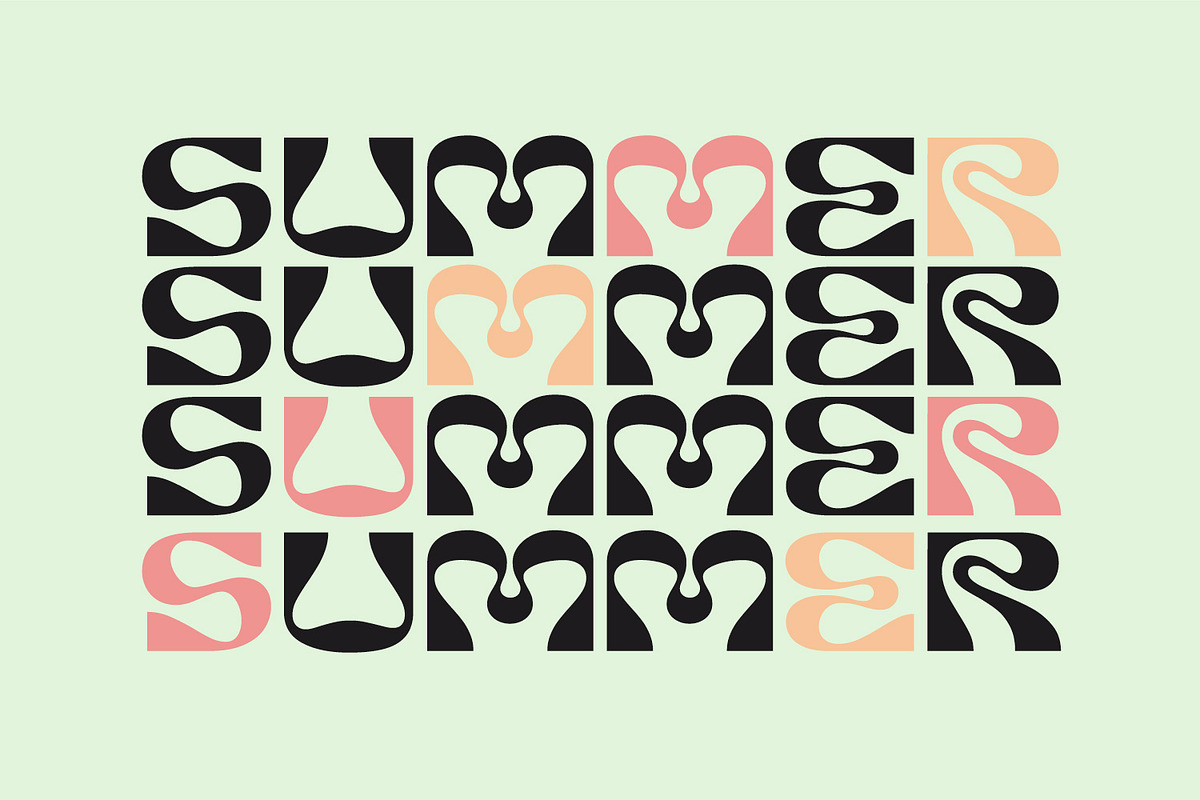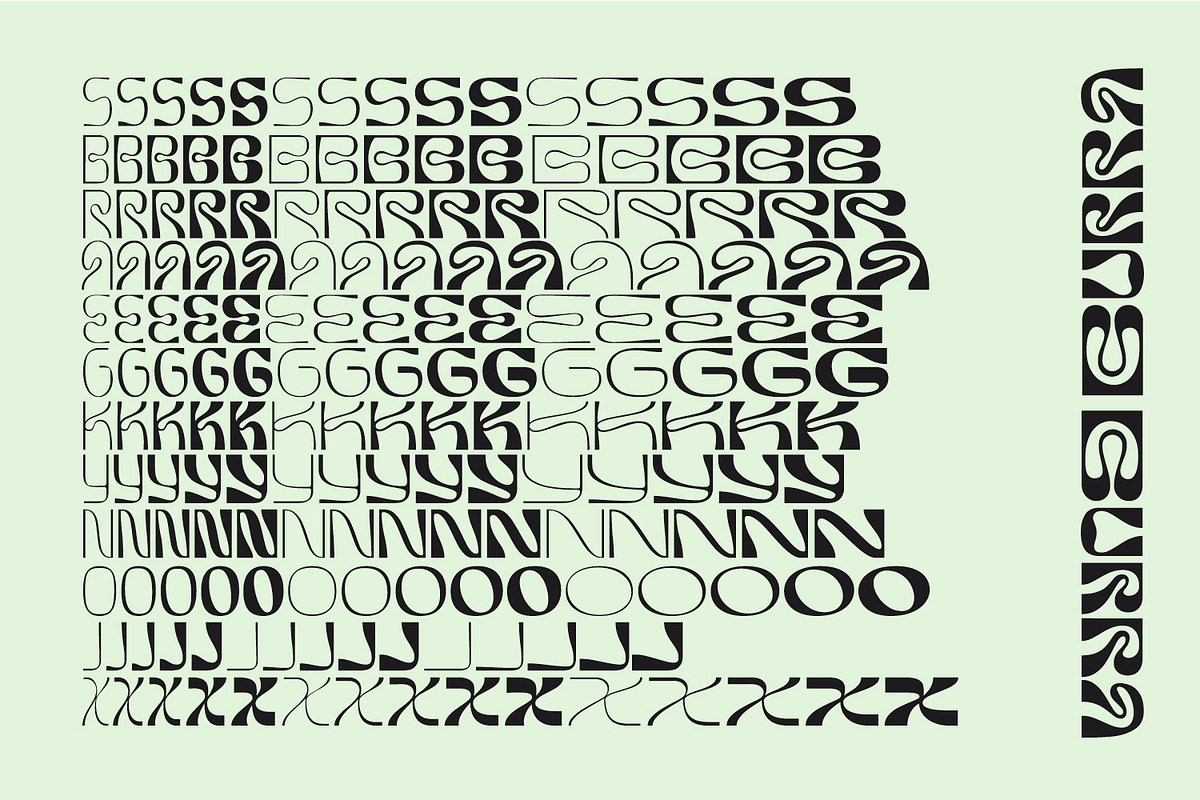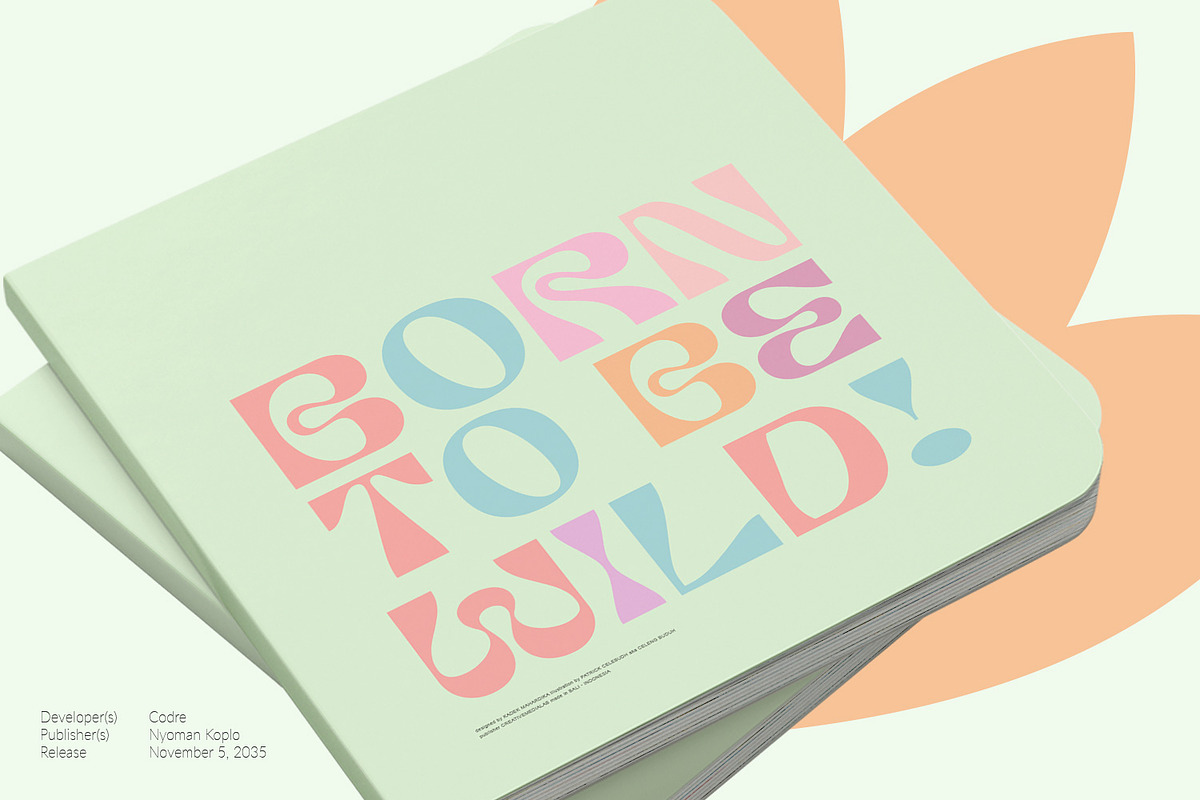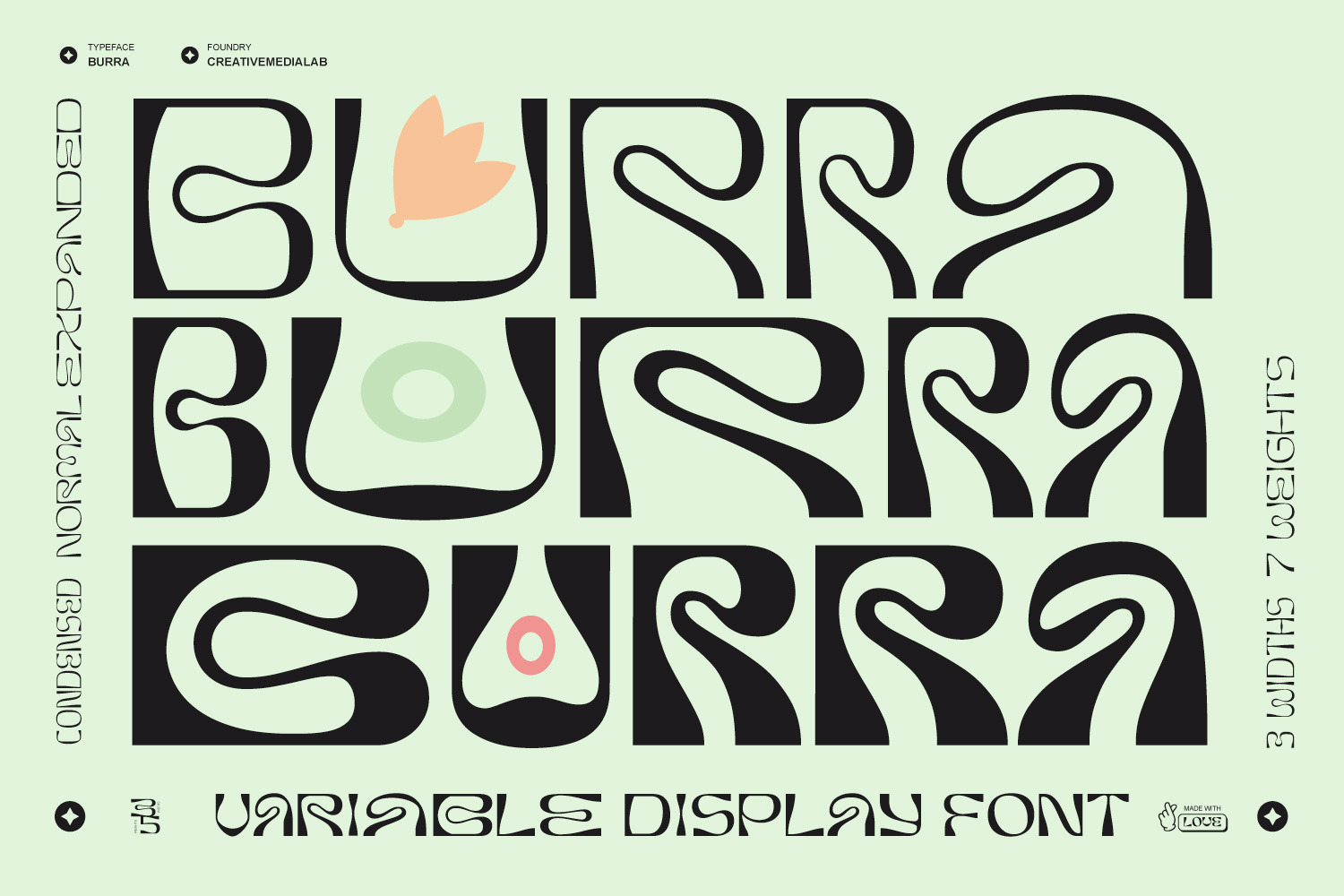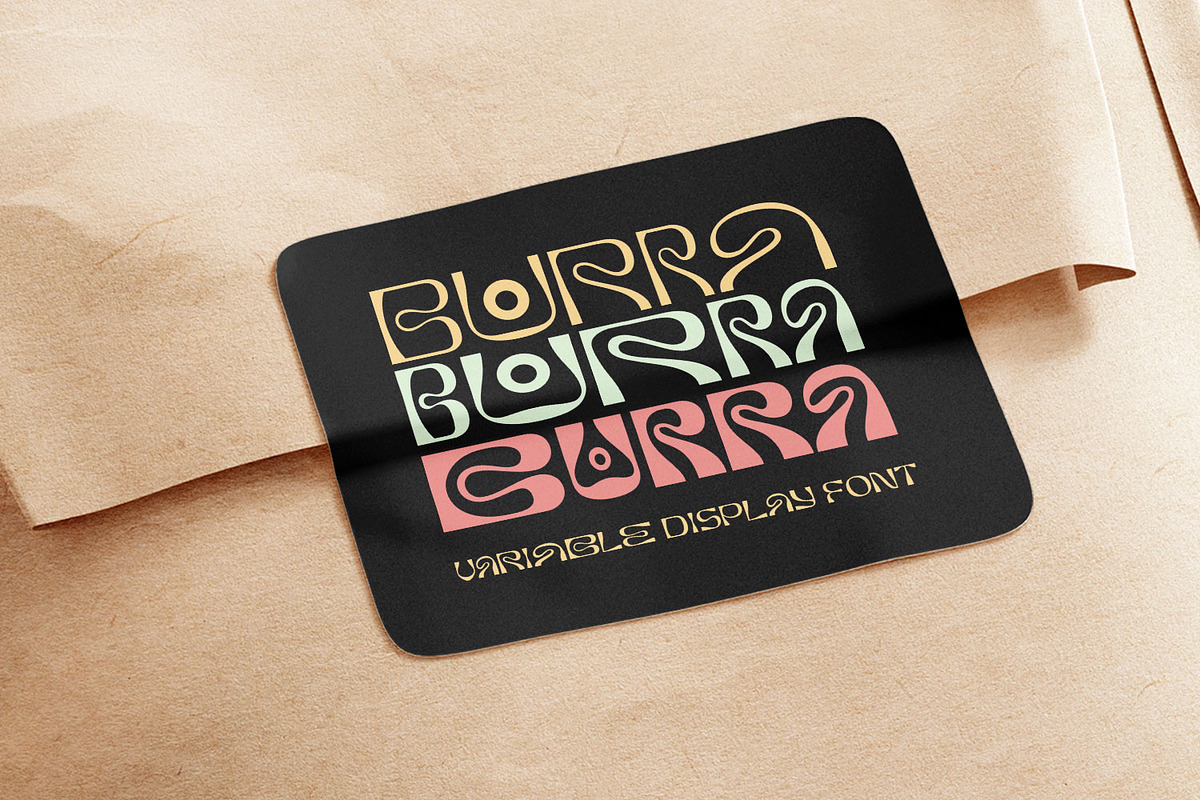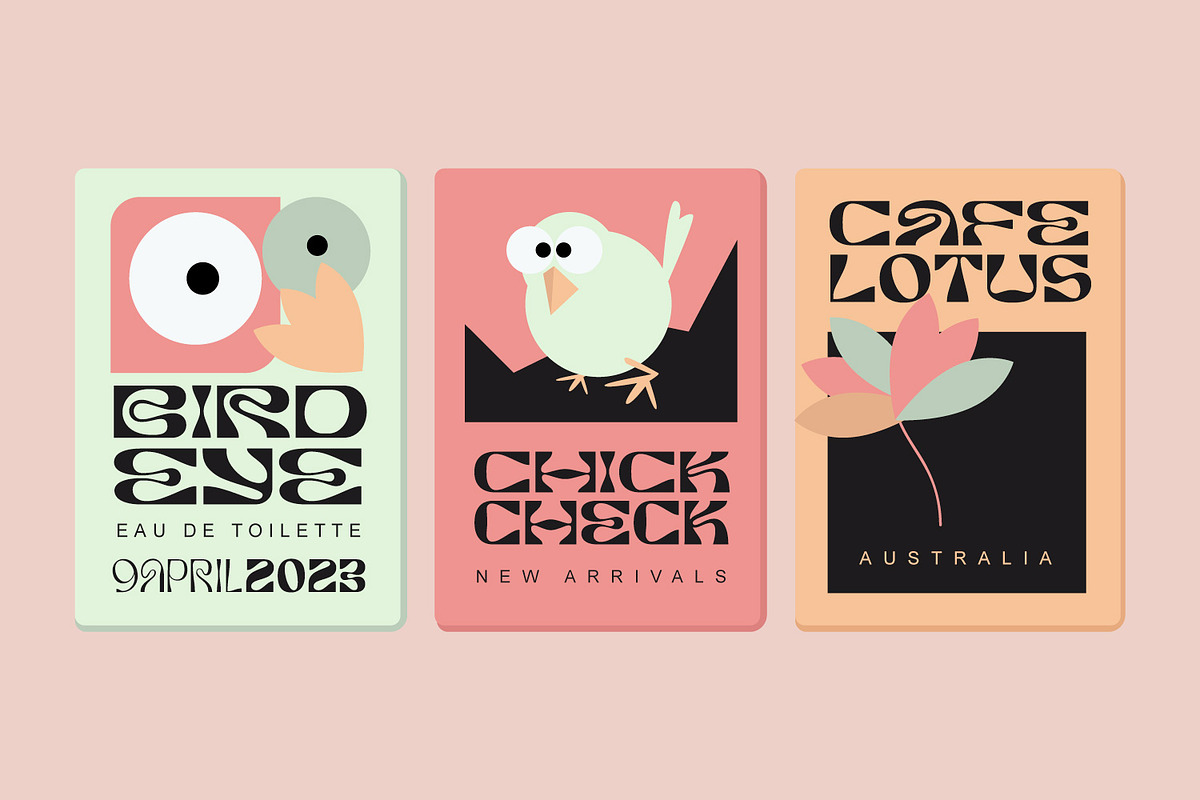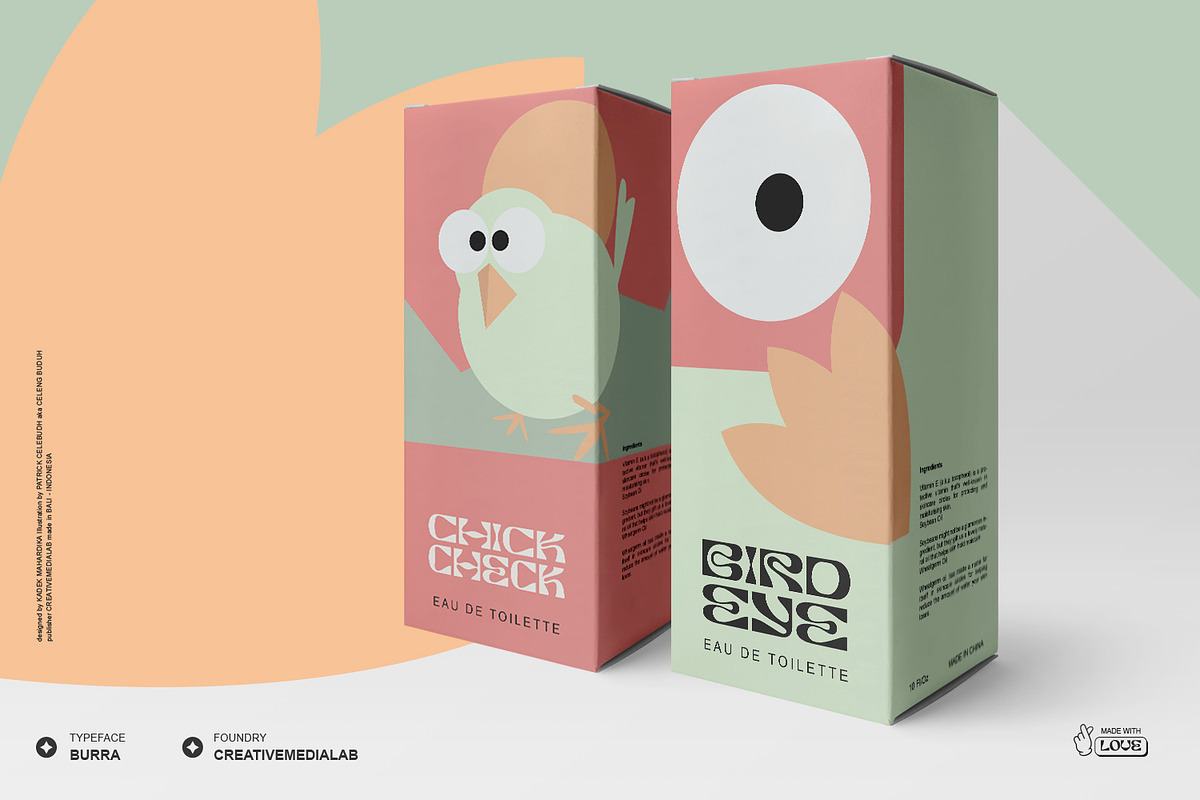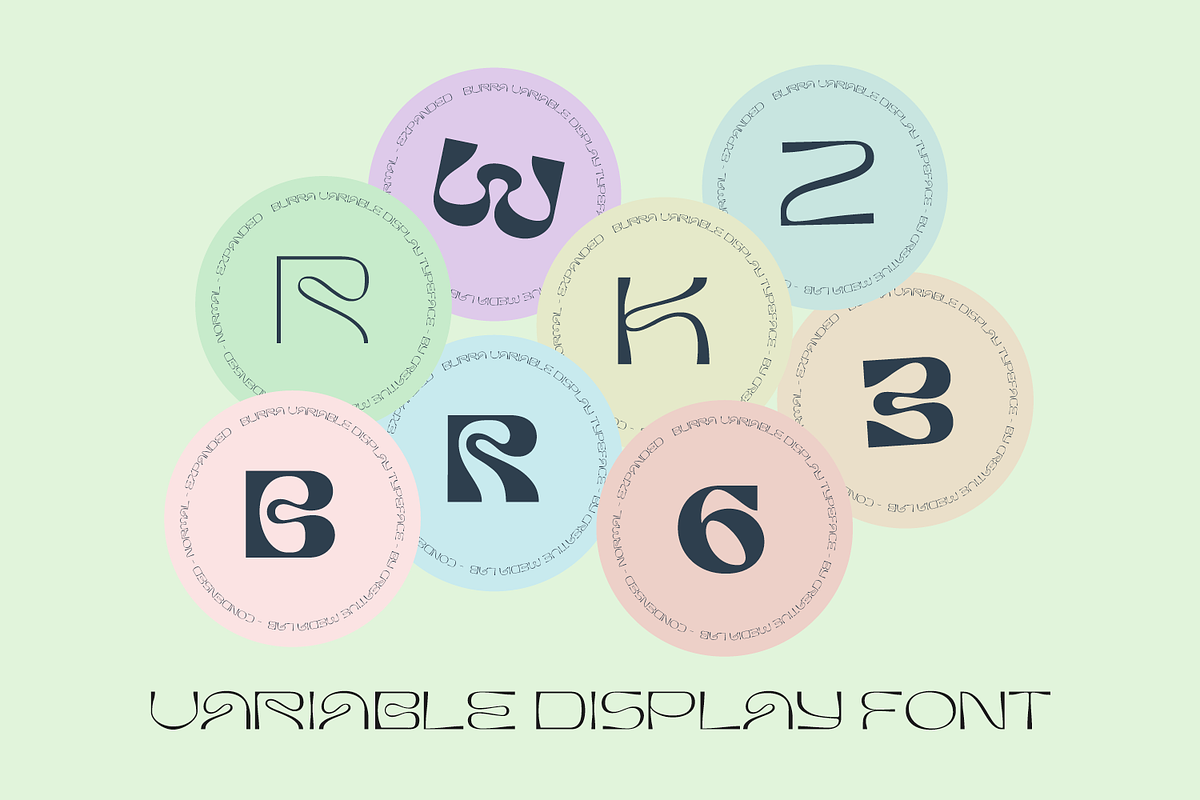
Burra - Psychedelic font
Introducing Burra, a Variable display font. All capital alphabet with a wavy psychedelic look. Inspired by liquify and water strokes. Burra Consists of 3 widths and 5 weights on each, a total of 15 fonts.
It is Variable font, officially known as Open-Type Font Variations. You can generate lots of width and weights with the two available slider axis. Burra will add fresh fun vibes to your designs. This font is perfect for clothing, book covers, titles, etc.